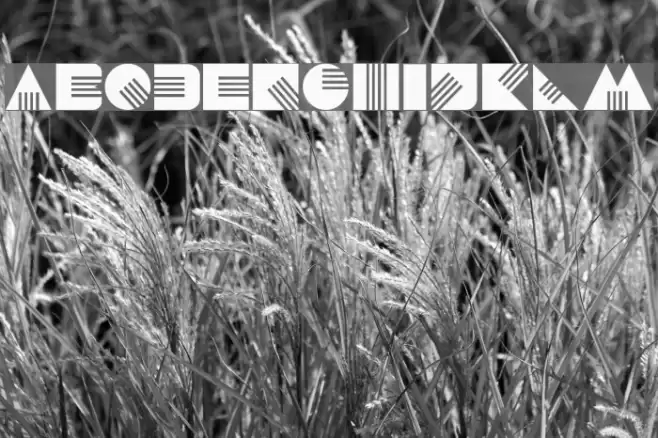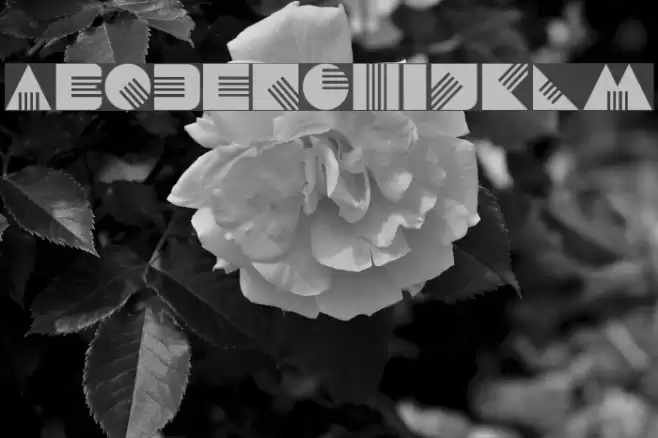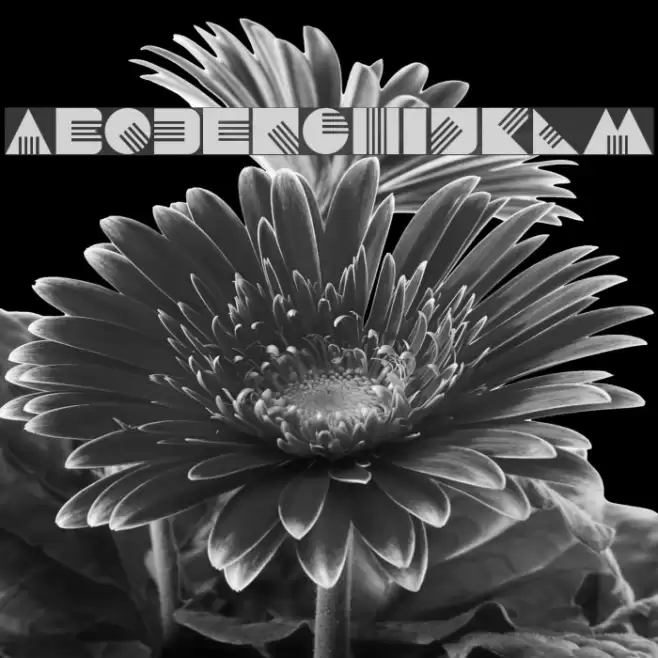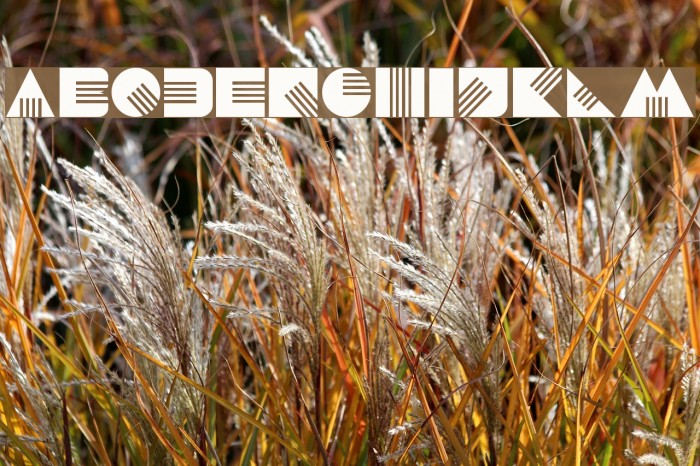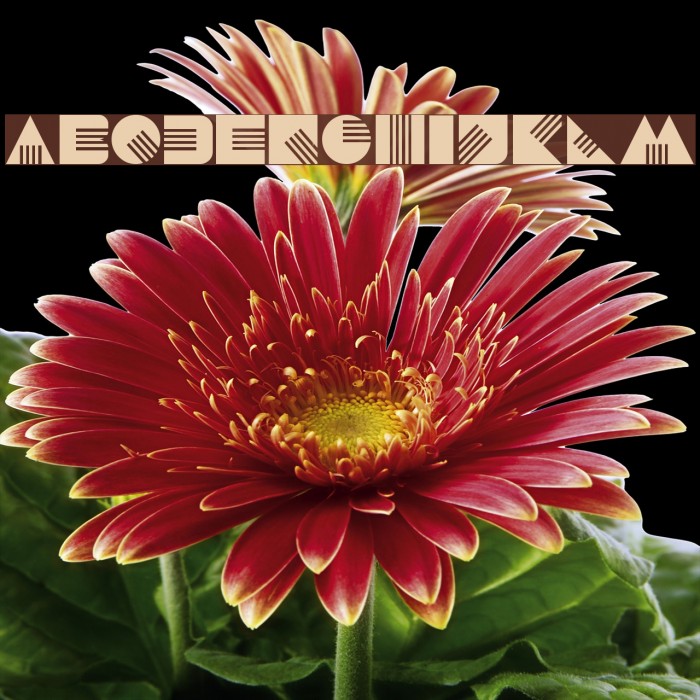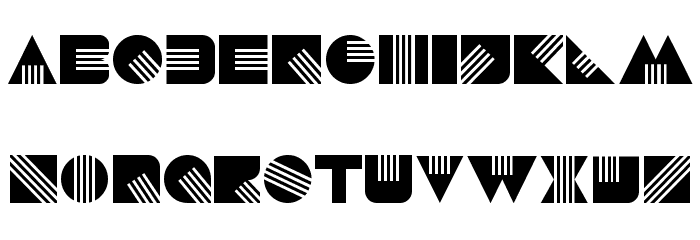
vuur Font
vuur Description
This font features a bold and geometric design with a distinct art deco influence. The uppercase letters are characterized by solid, block-like shapes with intricate line patterns that create a sense of movement and rhythm. The lowercase letters maintain the same geometric style, offering a cohesive look across the alphabet. The numerals are sleek and modern, complementing the overall aesthetic. Special characters are included, maintaining the bold and decorative style. This font is ideal for projects that require a striking and artistic touch.
A bold, geometric font with art deco influences and intricate line patterns from Crazy fonts.
- Proposed Projects: Ideal for branding, poster design, album covers, and any project needing a bold, artistic flair.
- Overall Style: Modern, Decorative